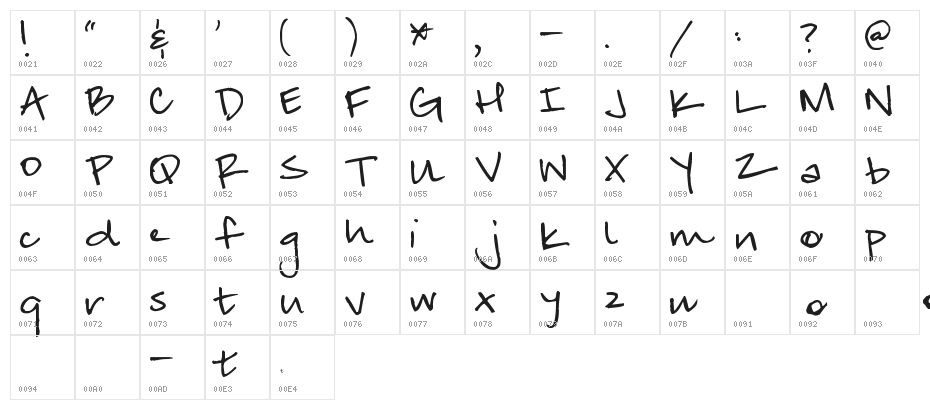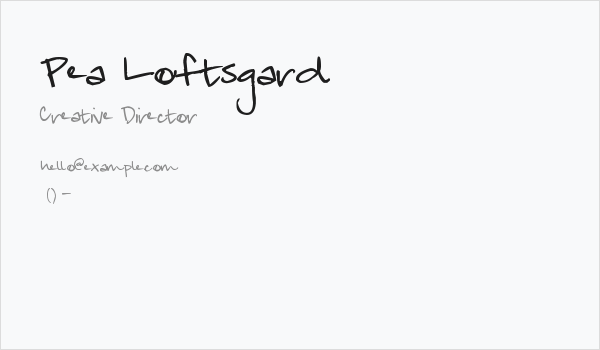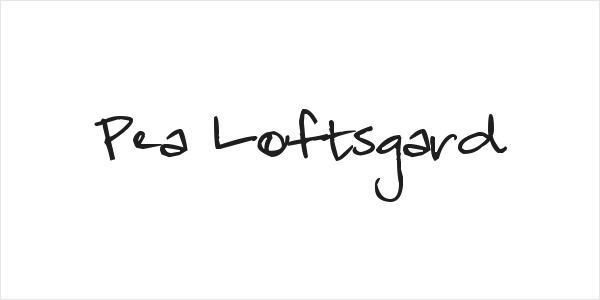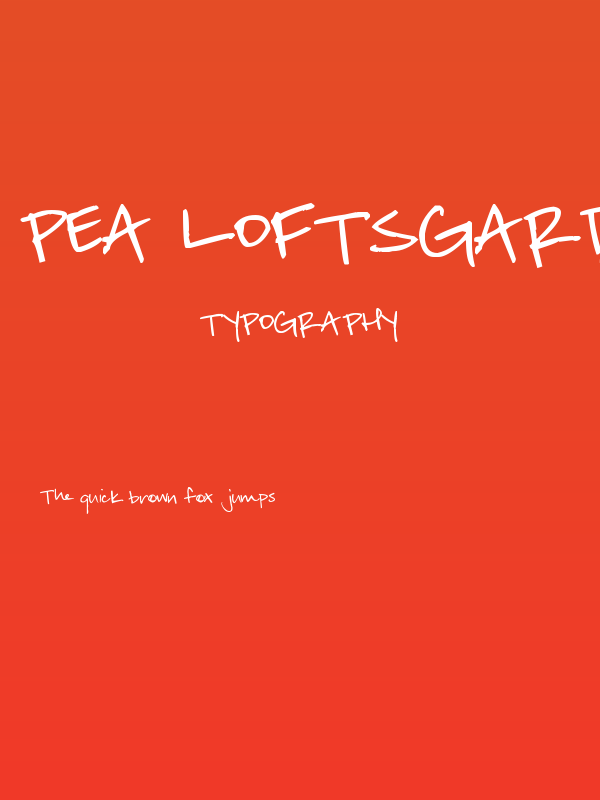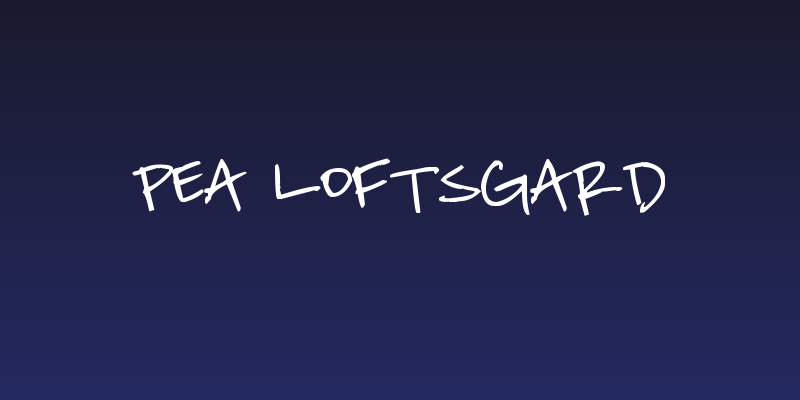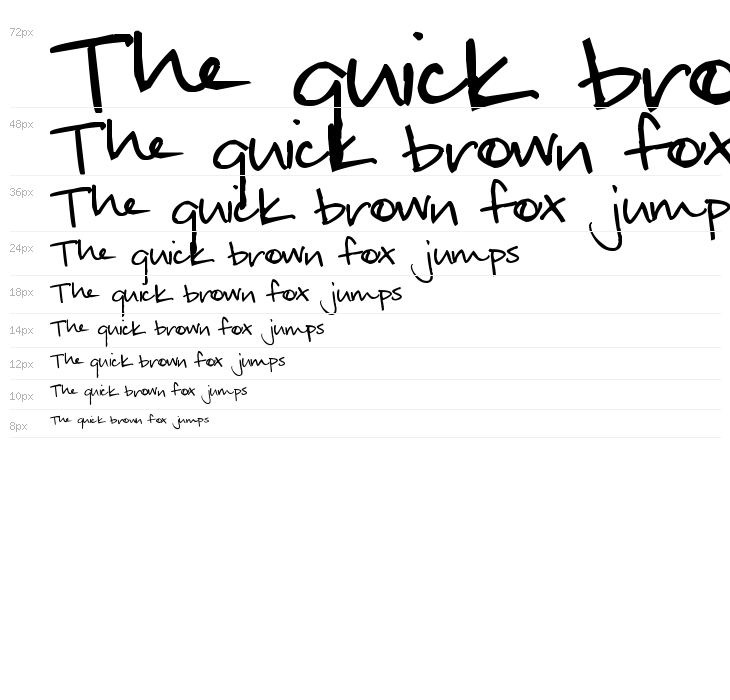
Pea Loftsgard Font
Pea Loftsgard Description
This font features a casual, handwritten style with a playful and informal appearance. The letters are slightly slanted, giving them a dynamic and lively feel. The strokes are uneven, mimicking the natural flow of handwriting, which adds a personal touch. The uppercase letters are bold and prominent, while the lowercase letters maintain a consistent flow. The numbers and special characters follow the same handwritten aesthetic, ensuring a cohesive look across all elements. This font is perfect for projects that require a personal, approachable, and friendly tone.
| Proposed Projects | Ideal for greeting cards, personal notes, invitations, and casual branding projects. |